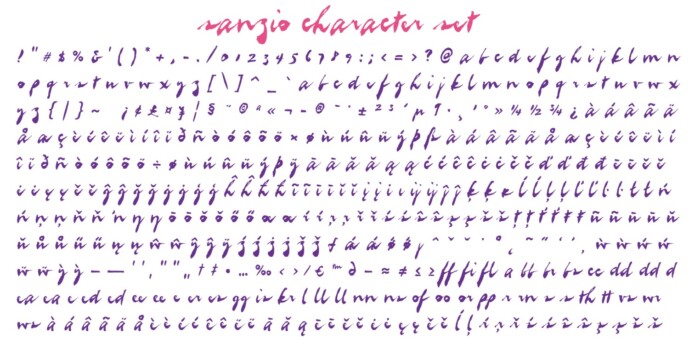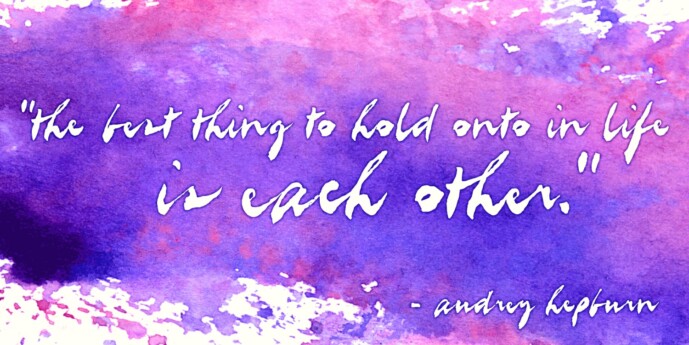
Sanzio Font
Sanzio Font – a font that exudes sassiness and flair. Its quick-handed elegance adds a touch of nostalgia to any project, instantly transporting you to a bygone era filled with adventure and intrigue.
Whether you’re designing invitations, crafting logos, or simply spicing up your font collection, Sanzio is more than up for the task. So why wait? Embrace the allure of brush lettering and unleash your creativity with Sanzio today!